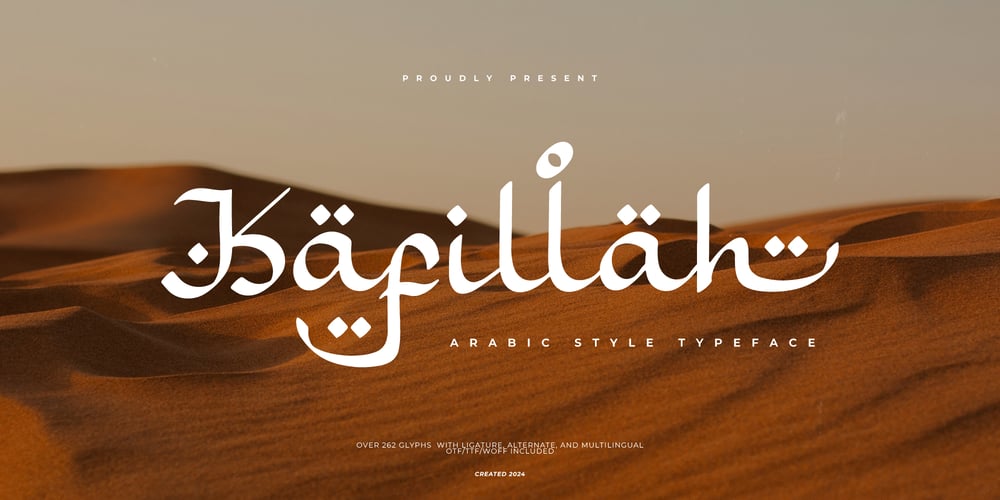
Kafillah Font Family was designed by Dede Nugraha and published by Denustudio. Kafillah contains 2 styles and family package options. Kafillah | Arabic Style Typeface, from Denustudios, suitable for any projects such as: logos, branding projects, homeware designs, product packaging, mugs, quotes, posters, shopping bags, t-shirts, book covers, name card, invitation cards, greeting cards, label, photography, watermark, special events, and all your other lovely projects that need a Arabic Style Typeface taste.===========================================================================What’s Included : Regular and Italic Web Font Standard glyphs Alternate and Ligature Works on PC & Mac Simple installations Accessible in the Adobe Illustrator, Adobe Photoshop, Adobe InDesign, even work on Microsoft Word and Other Software. PUA Encoded Characters – Fully accessible without additional design software. Fonts include multilingual support Hope you enjoy with our font!